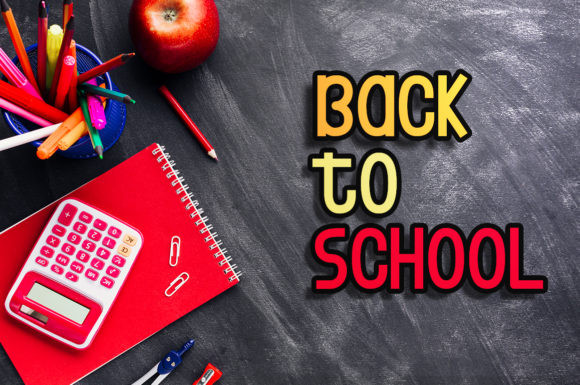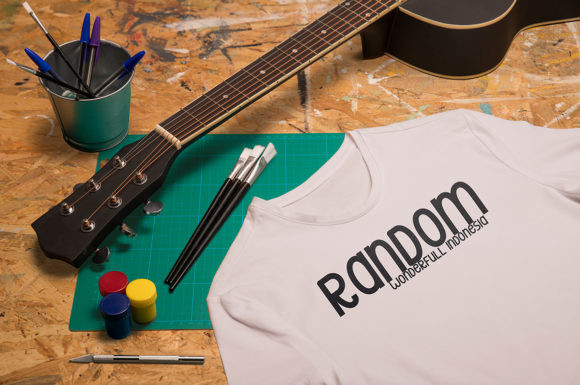
Create Font
Create is a cute and playful display font. Friendly and a little bit quirky, this font is the perfect fit for all of your logos, branding, posters, and crafty DIY projects.